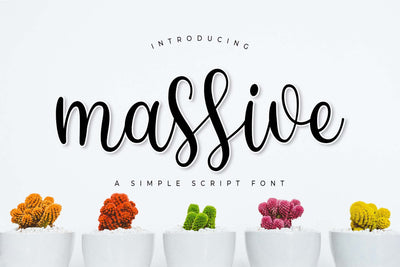
Massive
Massive is a fine, smart script font that emanates sophistication and elegance. It is PUA encoded which means you can access all of the glyphs and swashes with ease! Fall in love with its incredibly versatile style and use it to create spectacular designs!